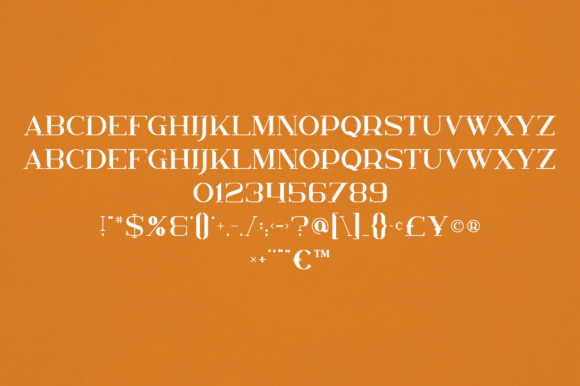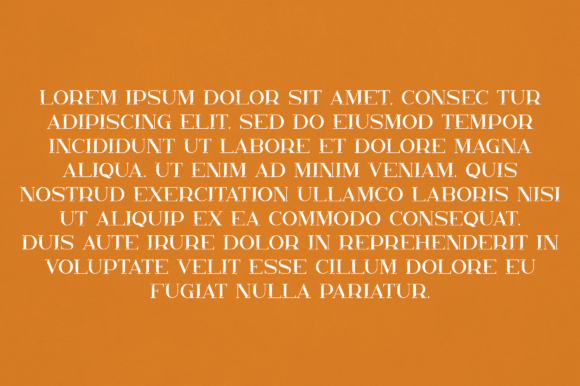
Introducing Elliana Font: Elevate Your Typography with Elegance and Versatility
In the world of typography, a font can make all the difference in creating a lasting impression. For designers and crafters looking to add a touch of sophistication and uniqueness to their projects, Elliana Font is an excellent choice. This elegant and versatile serif font is designed to make your typography truly stand out, whether it’s for a logo, branding, headline, or plain text.
The Characteristics of Elliana Font
Elliana Font boasts a classic serif design with a modern twist. Its elegant lines, refined curves, and precise details make it perfect for a wide range of applications. Here are some of the key characteristics that make Elliana Font a standout:
- Elegant and Refined: Elliana Font features a sophisticated design that’s perfect for high-end branding, luxury packaging, and editorial projects.
- Versatile: This font is highly versatile and can be used for a variety of applications, from logos and headlines to body text and captions.
- Serif Design: The classic serif design of Elliana Font adds a touch of tradition and sophistication to any project.
- Highly Legible: The font is designed to be highly legible, making it perfect for both print and digital applications.
Use Cases for Elliana Font
Elliana Font is perfect for a wide range of design projects, including:
- Branding Projects: Create a lasting impression with Elliana Font’s elegant and sophisticated design.
- Home-Ware Designs: Add a touch of luxury to your home-ware designs with this beautiful serif font.
- Product Packaging: Make your product packaging stand out with Elliana Font’s unique and elegant design.
- Magazine Headers: Create eye-catching magazine headers with Elliana Font’s bold and refined design.
- Text Overlays: Use Elliana Font as a stylish text overlay to add a touch of sophistication to any background image.
Why Choose Elliana Font?
With so many fonts available, why choose Elliana Font? Here are just a few reasons why designers and crafters love this elegant serif font:
- Unique Design: Elliana Font features a unique and elegant design that’s sure to make your typography stand out.
- High-Quality: This font is designed to be high-quality and highly legible, making it perfect for both print and digital applications.
- Versatile: Elliana Font is highly versatile and can be used for a wide range of design projects.
- Elegant: The font’s elegant design makes it perfect for high-end branding, luxury packaging, and editorial projects.
Tips for Using Elliana Font
Here are a few tips for getting the most out of Elliana Font:
- Experiment with Font Sizes: Elliana Font looks great in a variety of font sizes, from large headlines to smaller body text.
- Pair with Other Fonts: Try pairing Elliana Font with other fonts to create a unique and eye-catching typography combination.
- Use for Headlines and Titles: Elliana Font is perfect for headlines and titles, where its elegant design can really shine.
- Add a Touch of Sophistication: Use Elliana Font to add a touch of sophistication and elegance to your design projects.
In conclusion, Elliana Font is an elegant and versatile serif font that’s perfect for designers and crafters looking to add a touch of sophistication and uniqueness to their projects. With its classic design, high-quality construction, and versatility, Elliana Font is sure to make your typography truly stand out. Whether you’re working on a branding project, home-ware design, product packaging, or magazine header, Elliana Font is an excellent choice.